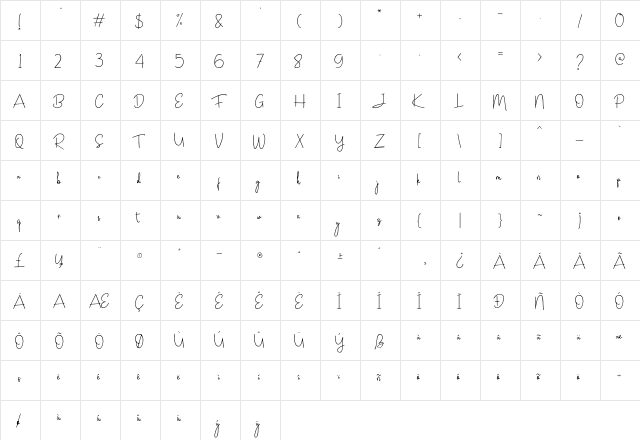
Janesville Script Regular
| Foundry | Fargun Studio |
| Designer | Fargun Studio |
Design Context for Janesville Script Typeface
Janesville Script flows with the natural rhythm of handwritten lettering, making it ideal for designs that call for warmth and personal expression.
Font Pairing: Combine Janesville Script with a simple geometric sans for maximum contrast — the tension between flowing curves and clean structure is a classic typographic pairing.
Pro Tip: Pair Janesville Script with a clean sans-serif for supporting text. The contrast between fluid script and geometric structure creates an elegant typographic hierarchy.